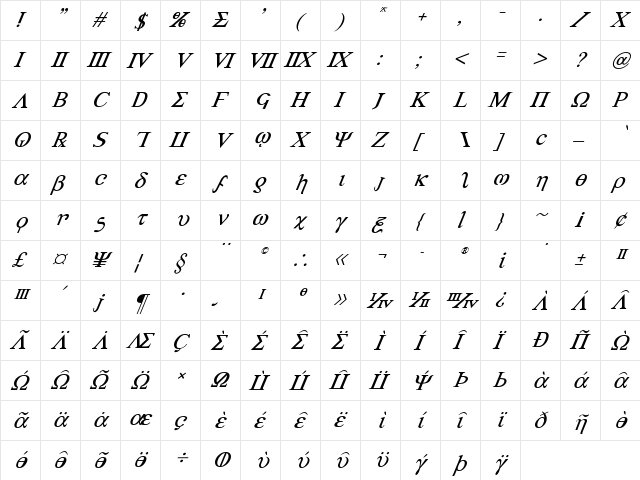
Achilles Super-Italic Super-Italic
Design Context for Achilles Super-Italic Typeface
Achilles Super-Italic takes a measured approach to typography — its balanced proportions and neutral character make it a reliable workhorse for both digital and print work. The dynamic lean of this cut emphasises speed and emphasis in any layout.